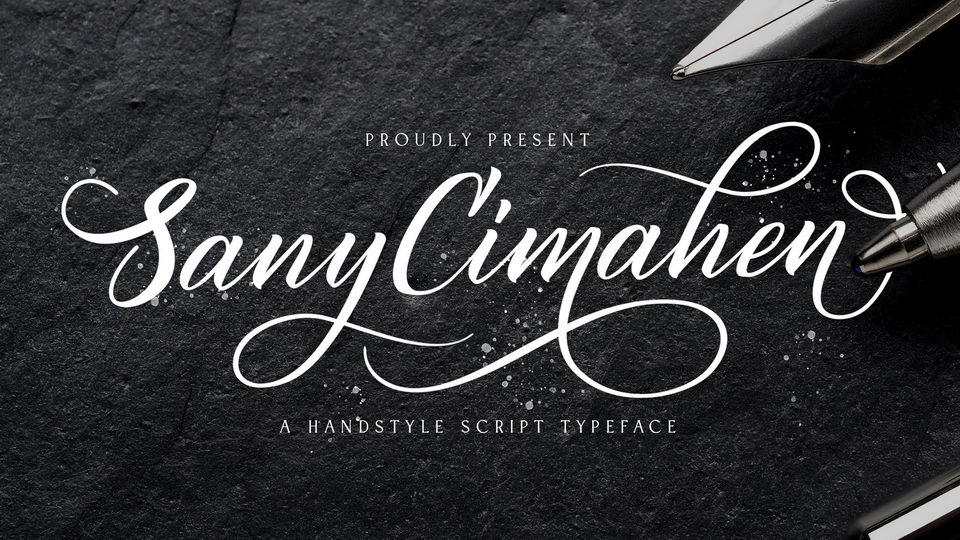
Download Sany Cimahen font a flowing handwritten typwface, described by an elegant touch, perfect for your favorite projects. With its incredibly distinct and timeless style Sany Cimahen is perfect to create spectacular designs.